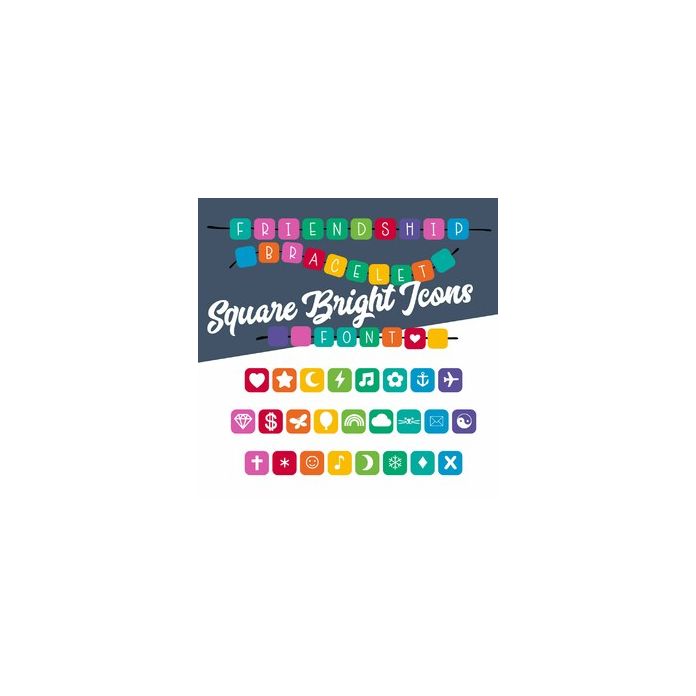
Friendship Bracelet Era Bright Square Icons Font
Square Bright beads for Icons also includes multi color plain beads to mix up patterns and straight and wavy threads to create your own friendship bracelet words, titles and quotes.